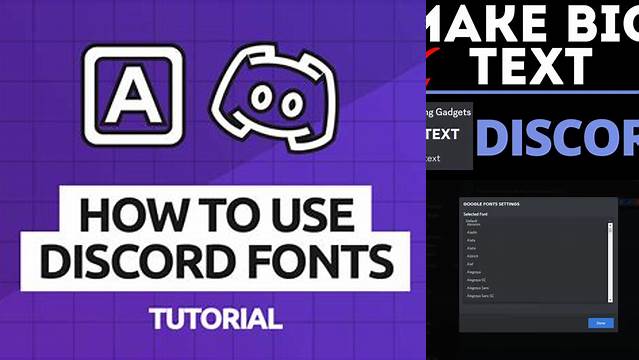
Discord Fonts: Styling Your Text Like A Pro
Hey guys! Ever wondered how people make their Discord messages stand out with cool fonts? Well, you're in luck! This guide will break down everything you need to know about using different fonts on Discord, from simple tricks to more advanced techniques. Let's dive in and make your text pop!
Why Use Different Fonts on Discord?
Different fonts on Discord aren't just about looking fancy; they're about expressing yourself in more ways than just words. Using unique styles can significantly enhance your communication. Think about it: you can emphasize important points, add a touch of creativity, or simply make your messages more visually appealing. In a world where we communicate so much online, standing out is key. Using different fonts helps you do exactly that! They can grab attention, clarify your meaning, and even add a bit of personality to your messages. Plus, changing up your font can be a fun way to keep your conversations interesting.
For example, imagine you're organizing a game night on Discord. You could use a bold font for the time and date, italicize the game's name, and use a monospace font to show the server link. This instantly makes your message easier to read and more engaging. Or, if you're giving instructions, using different fonts for headings, subheadings, and important notes can guide your readers, making the information easier to digest. Different fonts also help you create a unique brand for yourself or your server. You can use a specific font style to identify your messages, making it easier for people to recognize your posts instantly. It's all about using the tools available to make your messages clearer, more engaging, and more memorable.
In summary, leveraging the power of font styles is a smart move for anyone looking to communicate effectively on Discord. It can make your messages more visually appealing, emphasize important points, and add a touch of personality. The benefits extend beyond just looking cool; they include clearer communication, better engagement, and a stronger personal brand. So, why not explore the different font styles available and start using them to your advantage? By making these simple changes, you can transform your Discord communication from standard to outstanding. It's time to step up your game, guys, and get creative with your text styling!
Basic Text Formatting: Bold, Italics, Underline, and More
Before we jump into more advanced stuff, let's cover the basics. Discord has built-in formatting options that are super easy to use. You don't need any special tools or websites for these – they're right at your fingertips. Let's get you started!
Bold: To make your text bold, simply put two asterisks (**) or two underscores (__) before and after the words you want to emphasize. For example, writing this text is bold or this text is bold will result in this text is bold.
Italics: For italics, use one asterisk (*) or one underscore (_) on either side of your text. Typing this text is italicized or this text is italicized will give you this text is italicized.
Bold and Italics: You can combine bold and italics by using three asterisks (***) or three underscores (___). For instance, this text is bold and italicized will display as this text is bold and italicized.
Underline: Use two underscores (__) on either side of your text. For example, this text is underlined will show as this text is underlined.
Strikethrough: Want to cross out your text? Use two tildes (~~) before and after your words. This will give you this text is strikethrough.
||Spoiler:|| If you want to hide a text that can be revealed by the user, you can use the double vertical lines. For example, ||this is a spoiler|| will create ||this is a spoiler||. When the user clicks it, it will reveal the content.
These basic formatting options are your bread and butter for Discord text styling. They are easy to learn and essential for creating clear and engaging messages. Make them part of your daily Discord routine, and you'll see how quickly they can improve your communication.
Using Discord's Built-in Formatting with Code Blocks
Okay, guys, let's crank it up a notch! Discord has some built-in ways to use different fonts with code blocks. This is where things get a bit more technical but still relatively easy.
Monospace Font: You can create a monospace font effect by using backticks (). Surround your text with a single backtick for inline monospace (like this text is monospace`) or triple backticks (```) for a larger block of text. This is useful if you want to display code, or any text, that looks neat and consistent. For example:
this is a block of monospace text.
This will display as:
this is a block of monospace text.
This is super handy when you're sharing code snippets or want to make certain text stand out as different.
Code Blocks: The triple backticks are also used to create larger code blocks. This keeps your code, or any text, in a neat format without Discord trying to format it in other ways. It's perfect for sharing longer blocks of text without it getting messy.
This is a longer block of text
that stays formatted thanks to
triple backticks.
This will also display the same as the previous example.
Syntax Highlighting: You can even specify the language in the code block to get syntax highlighting, which makes your code look even better and easier to read. For example, to highlight Python code:
Remember, the key is to use fonts thoughtfully and to enhance your communication. Don't be afraid to try new things, but always prioritize clarity and readability. With these tips and tricks, you're well on your way to leveling up your Discord game and making your messages stand out. Happy chatting!